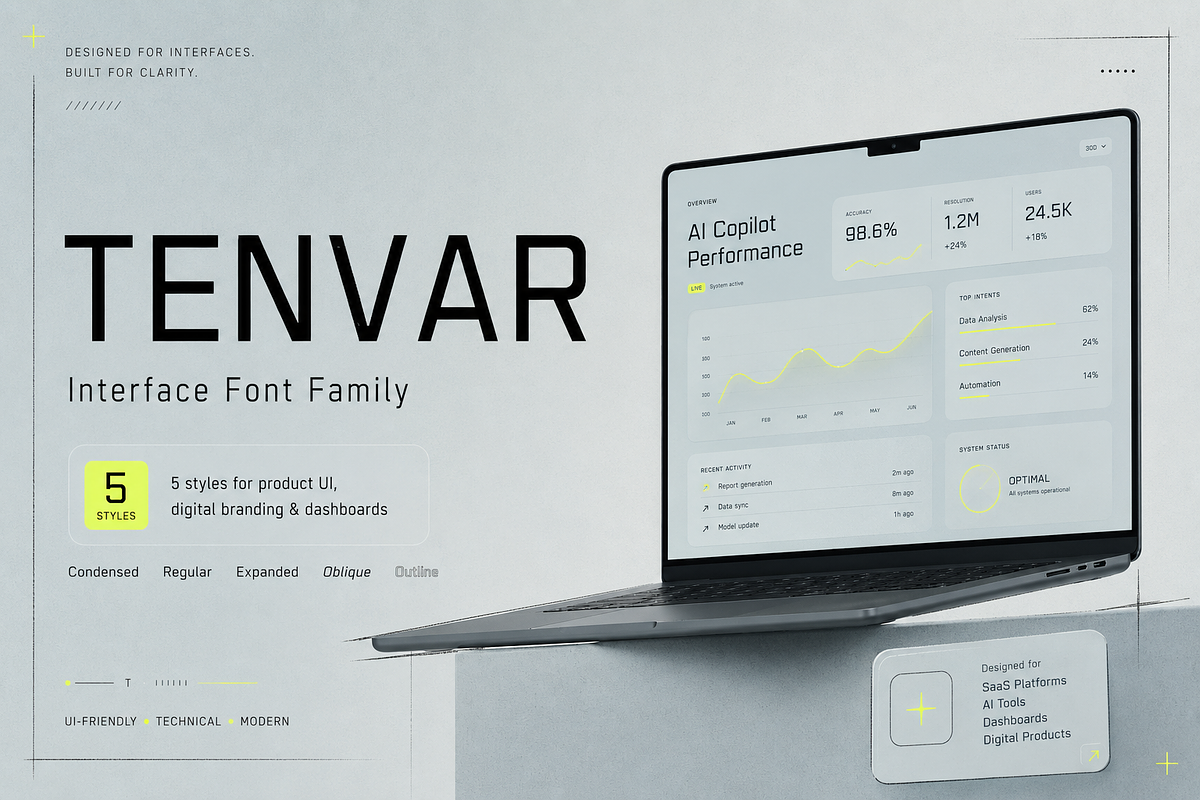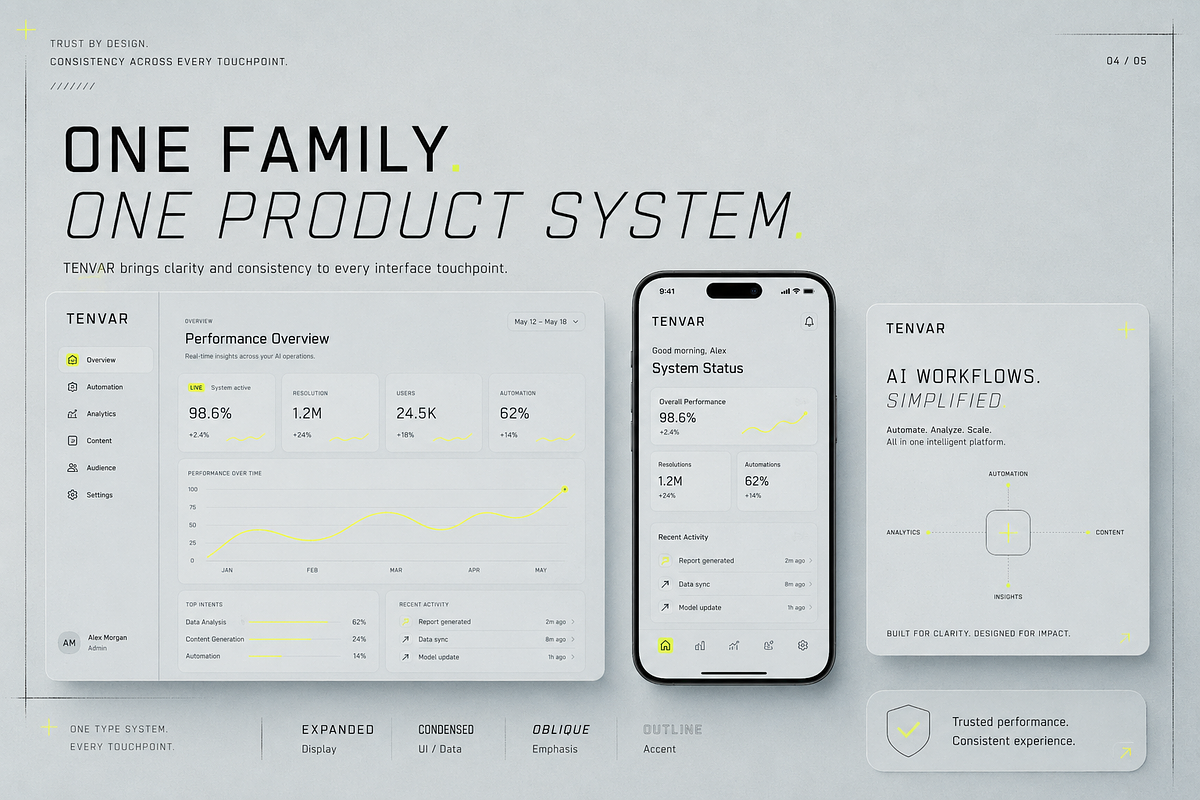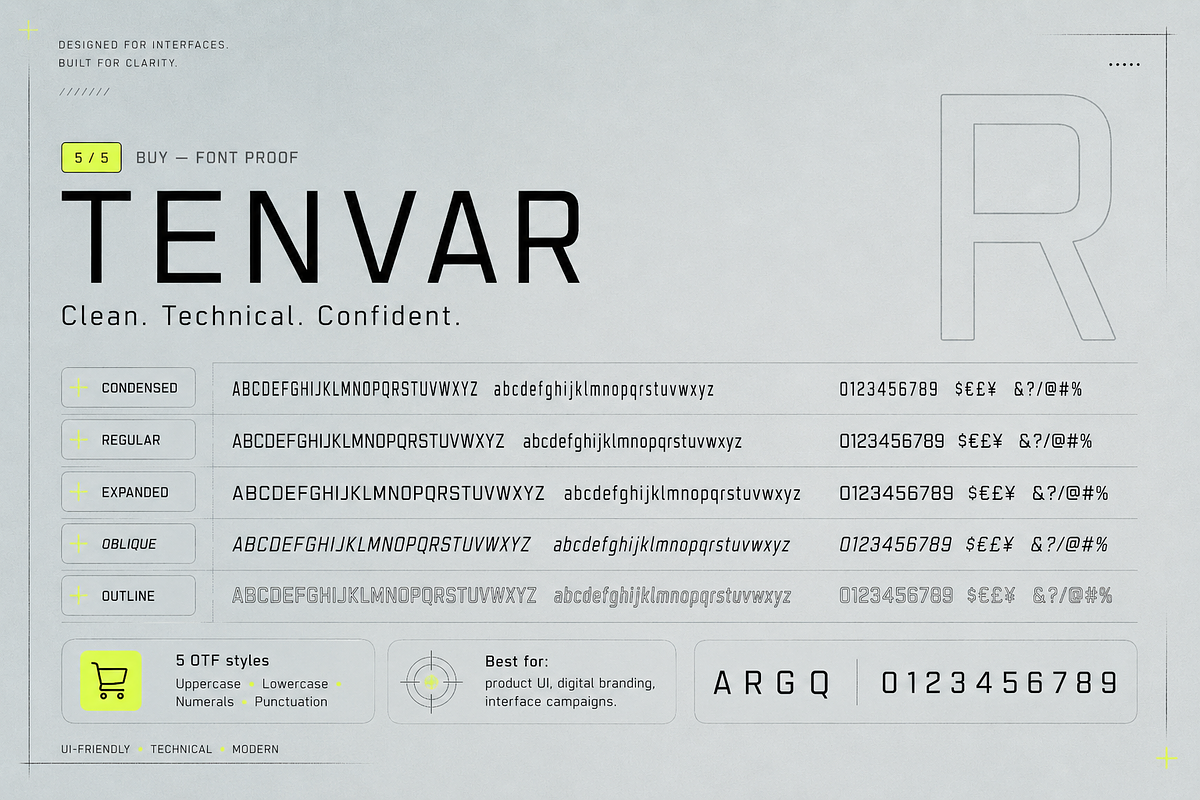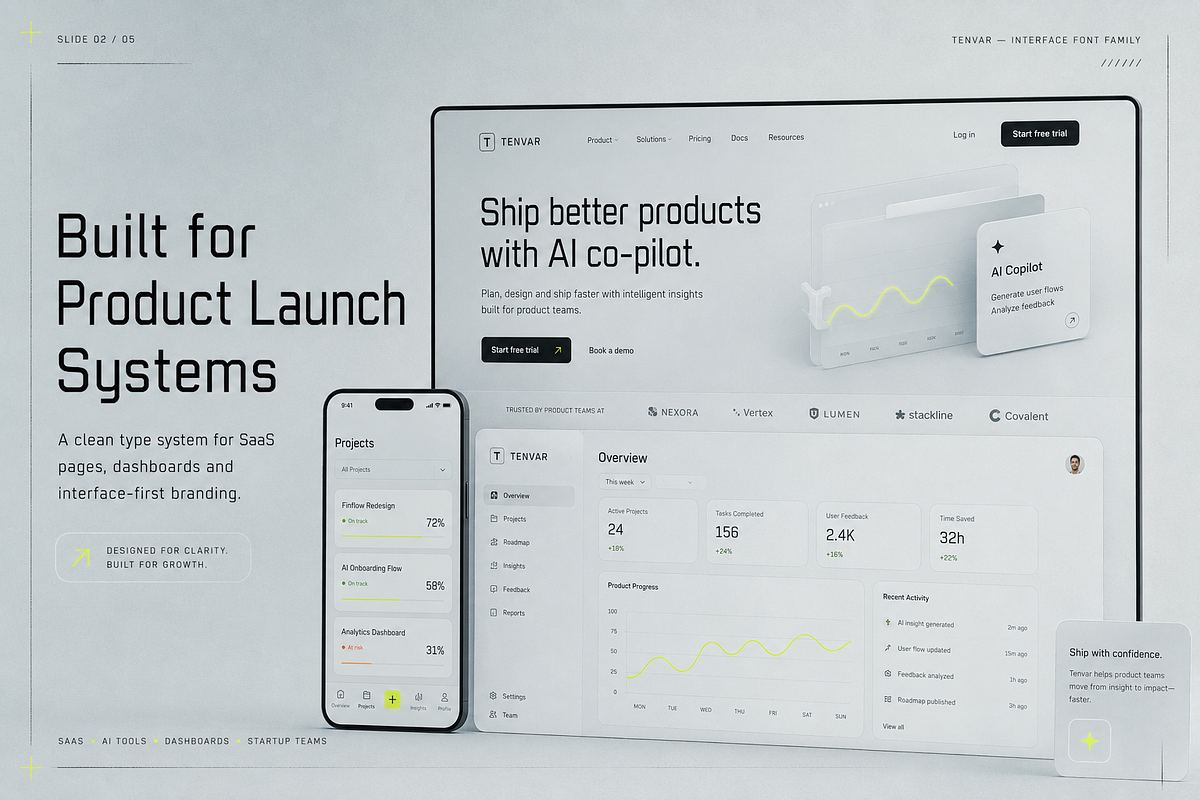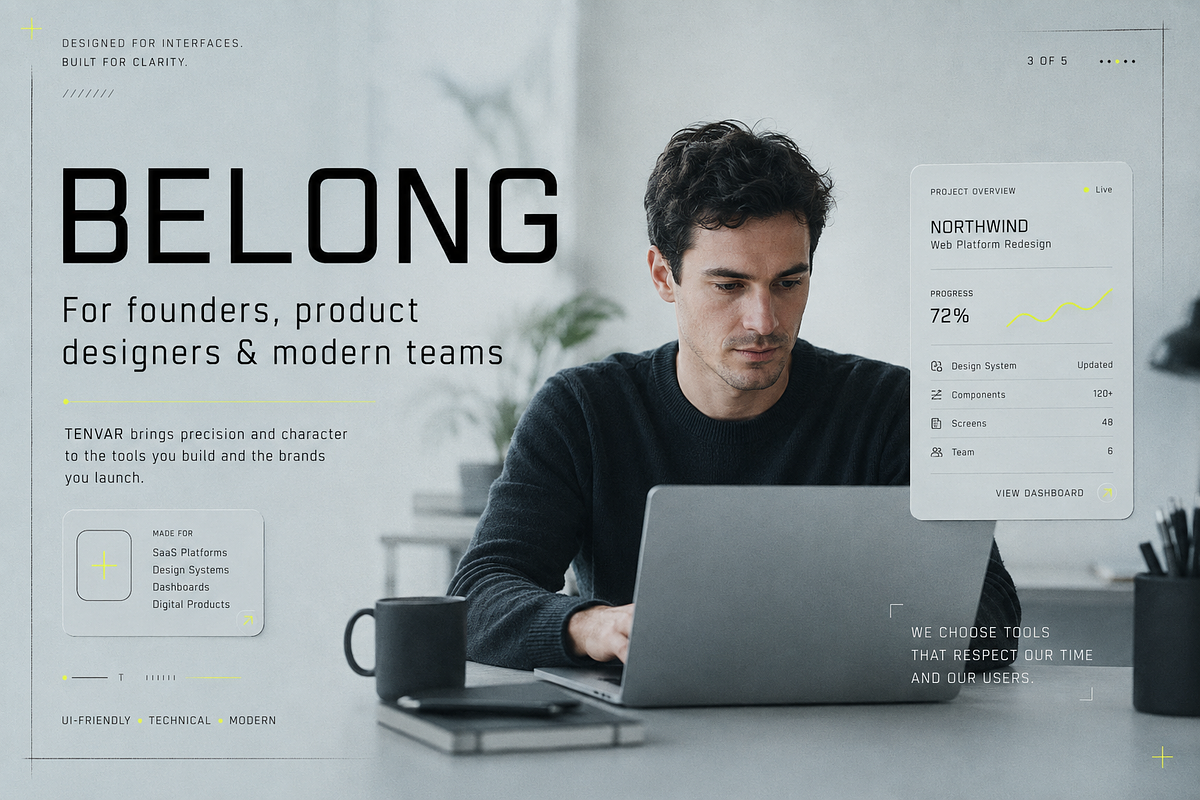
TENVAR – Modern Tech Sans Serif
TENVAR is a modern tech sans serif font family built for digital products, interface-first brands, and contemporary visual systems.
Instead of giving every project the same generic futuristic look, TENVAR combines a clean technical structure with five distinct styles that can work together across one complete brand or product experience.
Use Expanded for confident display typography, Regular for core brand communication, Condensed when space becomes limited, Oblique for emphasis and directional energy, and Outline for expressive accents.
TENVAR is especially suited to SaaS branding, product websites, dashboards, UI concepts, technology brands, startup identities, presentations, posters, digital campaigns, and modern editorial layouts.
CHARACTER SET
• Uppercase A–Z
• Lowercase a–z
• Numerals 0–9
• Standard punctuation
• Common symbols and currency characters
• Built-in kerning
DESIGNED FOR
• SaaS and technology branding
• UI and product design
• Websites and landing pages
• Dashboards and data-driven layouts
• Startup identities
• App concepts
• Posters and presentation titles
• Digital campaigns
• Modern editorial design
WHY TENVAR
One family can move between bold display typography, compact interface labels, directional emphasis, and outlined graphic accents while maintaining a consistent visual identity.
This makes TENVAR especially useful for designers building complete product systems rather than isolated graphics.
Build the interface. Shape the brand. Keep the system consistent.